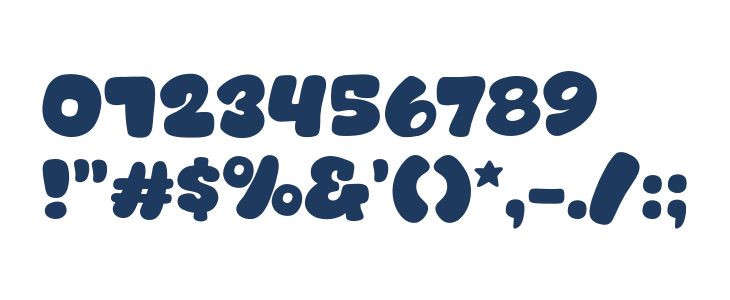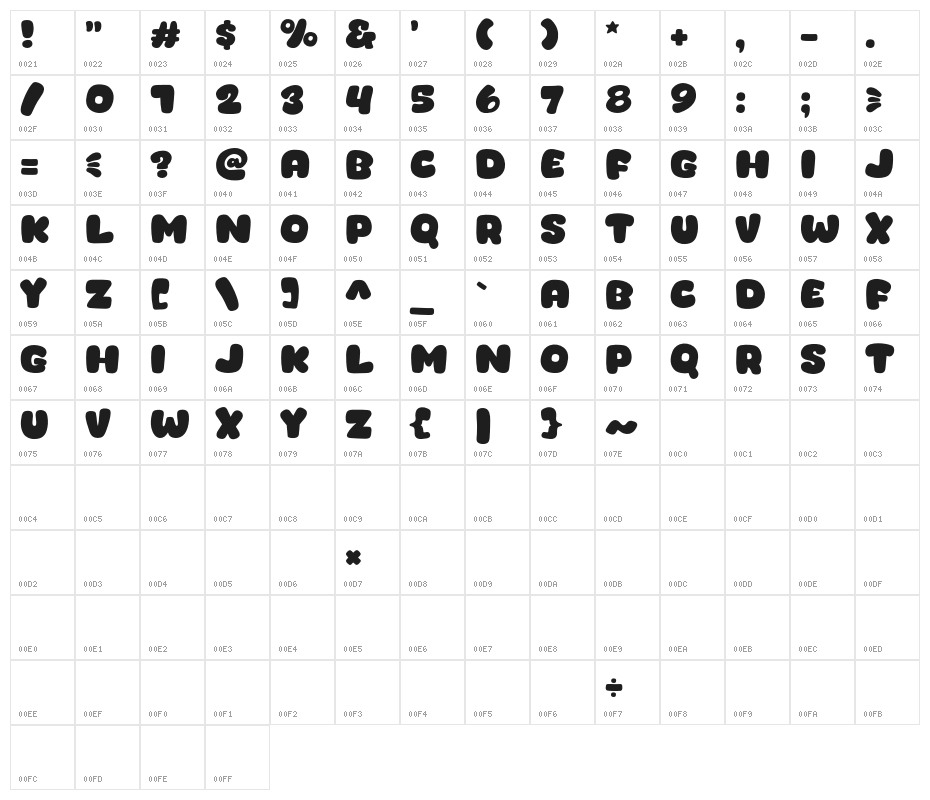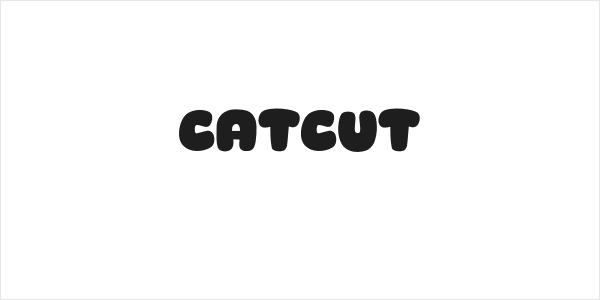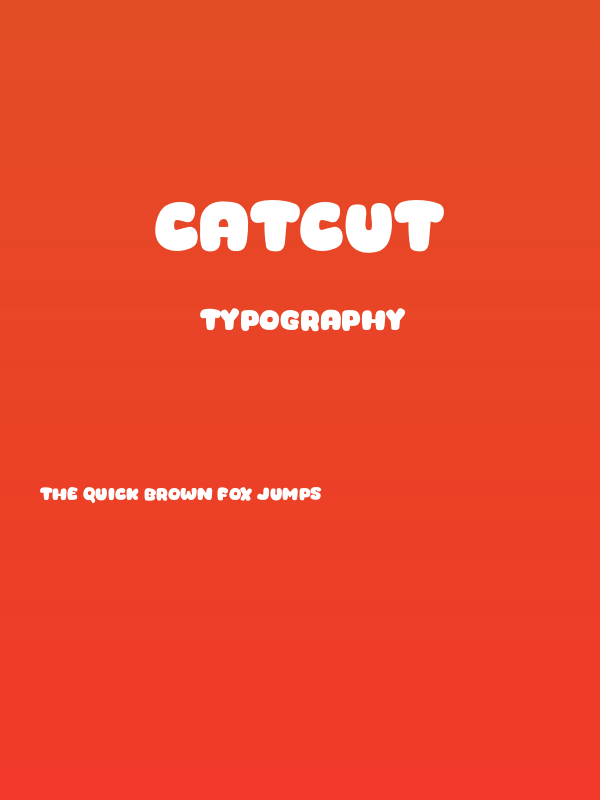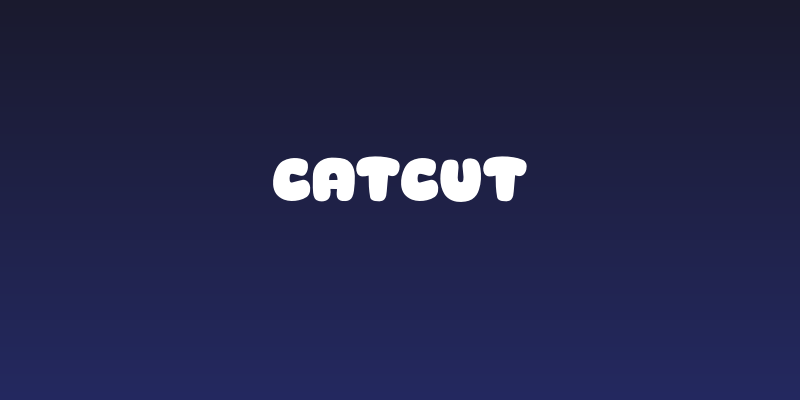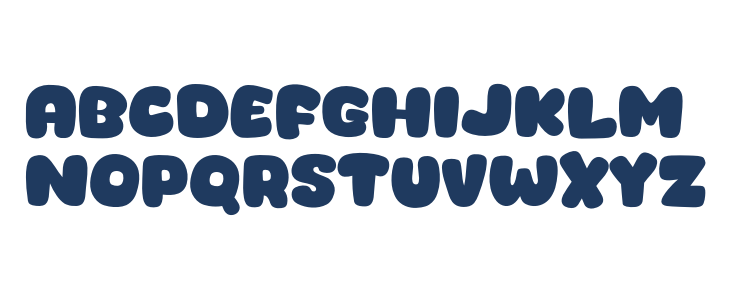
Catcut Font
Catcut Description
This font features bold, rounded characters with a playful and friendly appearance. The letters are thick and have a uniform stroke width, giving them a strong presence on the page. The rounded edges and lack of sharp angles contribute to a soft, approachable look, making it ideal for designs that aim to convey warmth and fun. The numerals and special characters maintain the same rounded style, ensuring consistency across all text elements. This font is particularly suitable for creative and informal applications, where a sense of whimsy and approachability is desired.
| Overall Style | Playful |
| Use Case | Logos, Headlines, Posters |
| Proposed Projects | Ideal for children's books, playful branding, casual invitations, and fun posters. |